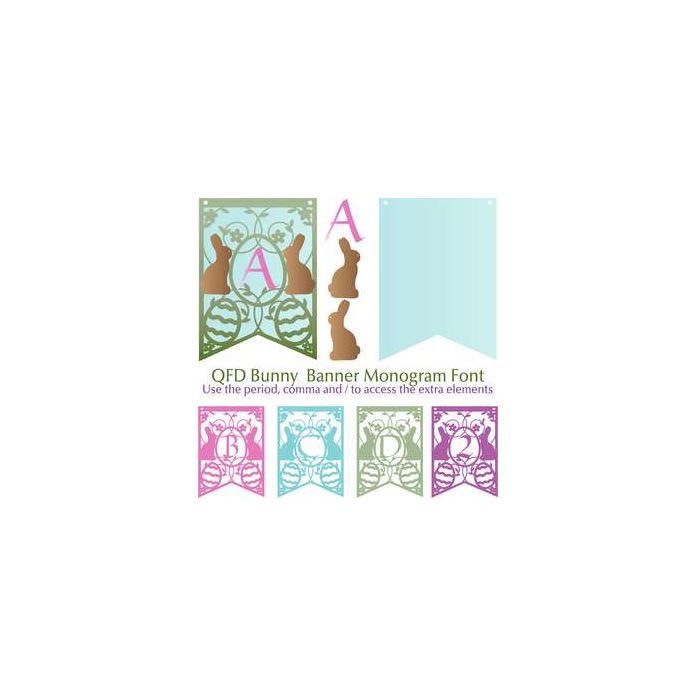
Instructions: Use the period and comma to access the bunnies, the / to access the plain background banner and the lower case to access the plain letters. Number onlays are accessed by holding the Shift key and typing the number. Resize all the needed elements at the same time and cut in the colours of your choice. Layer the letter banner on the plain banner, matching the holes and add the other elements if desired. Add a ribbon to make a single hanging or cut lots and string on the wall! See our monograms tutorial by clicking the Instructions button. If you have any questions, please feel free to contact me.